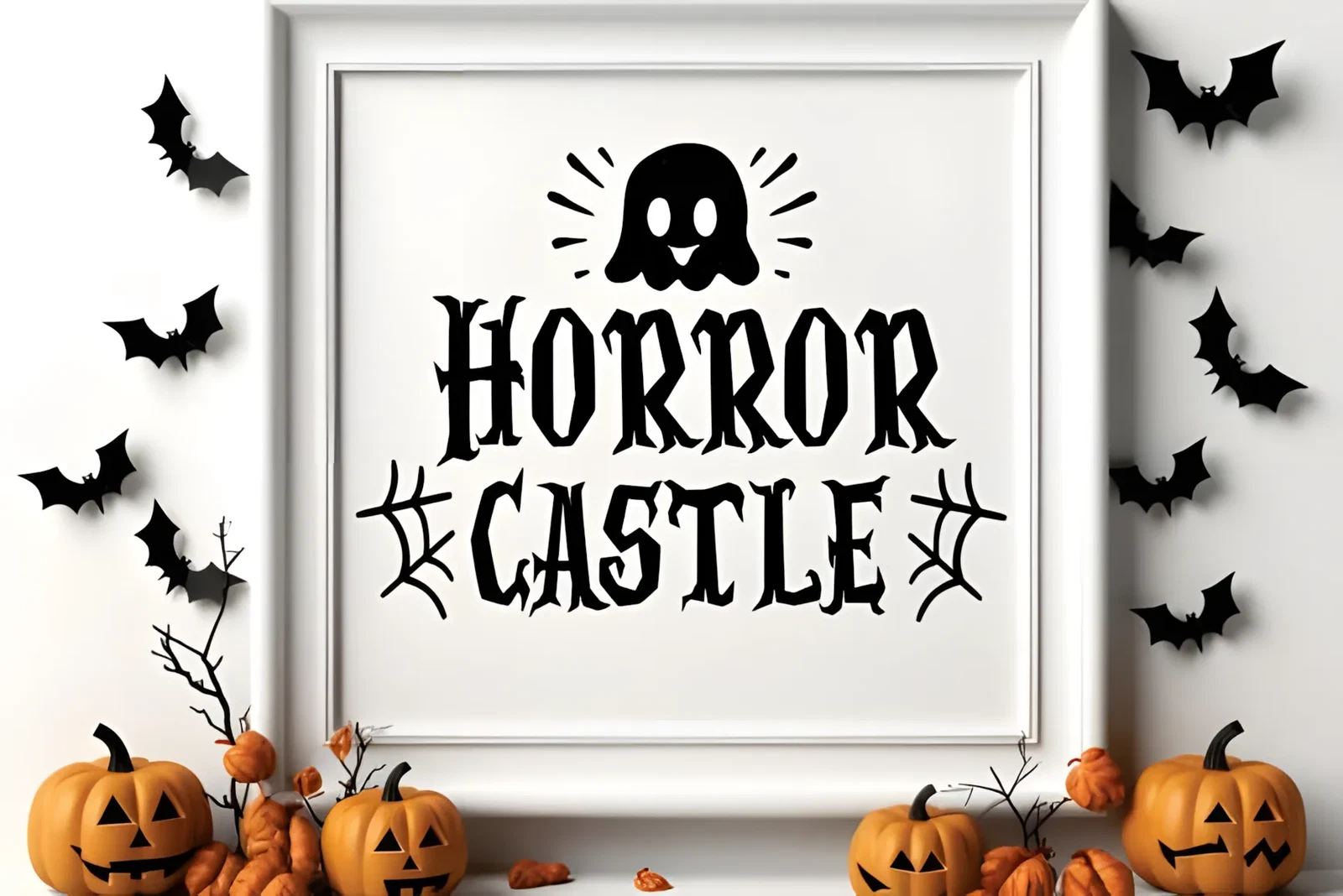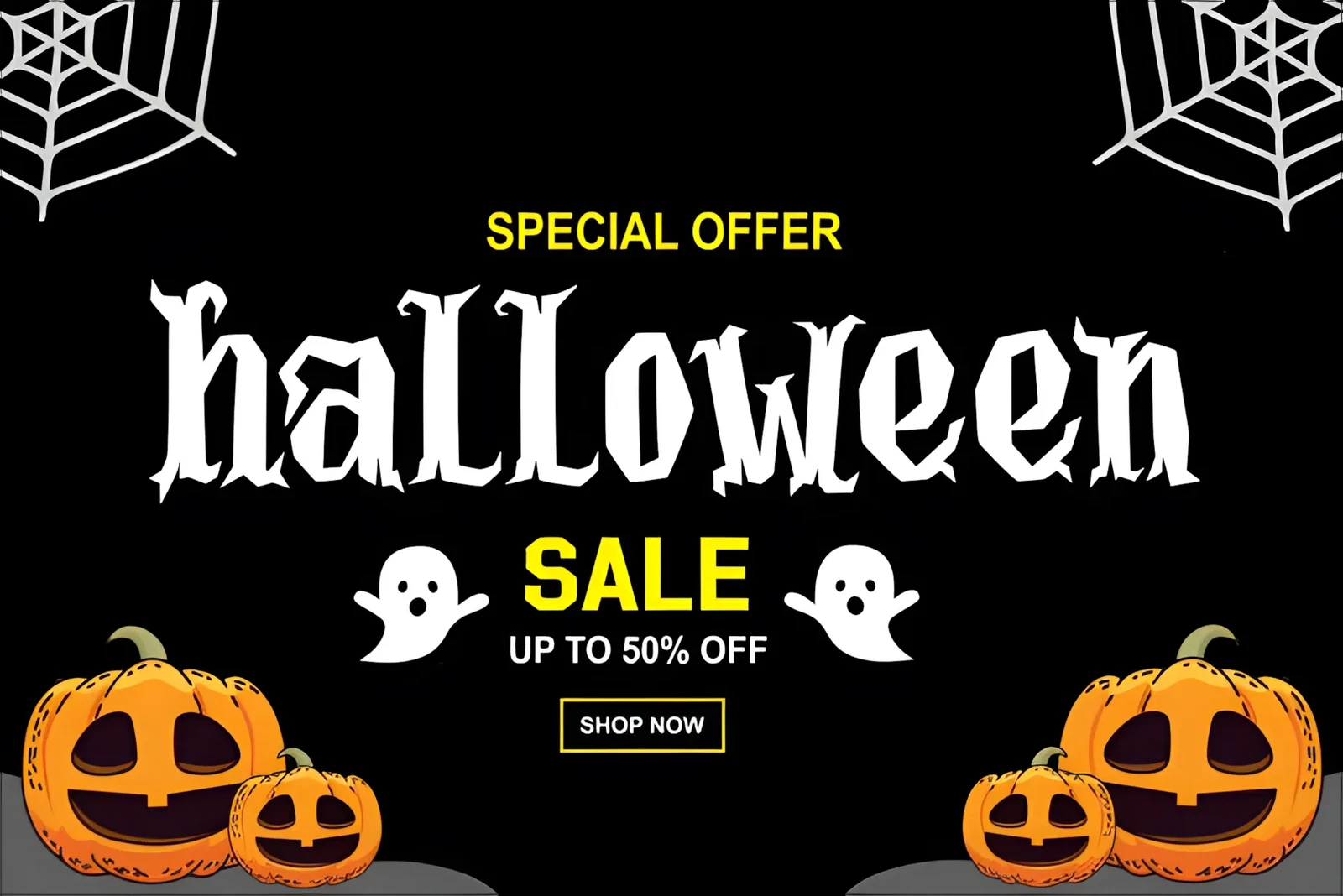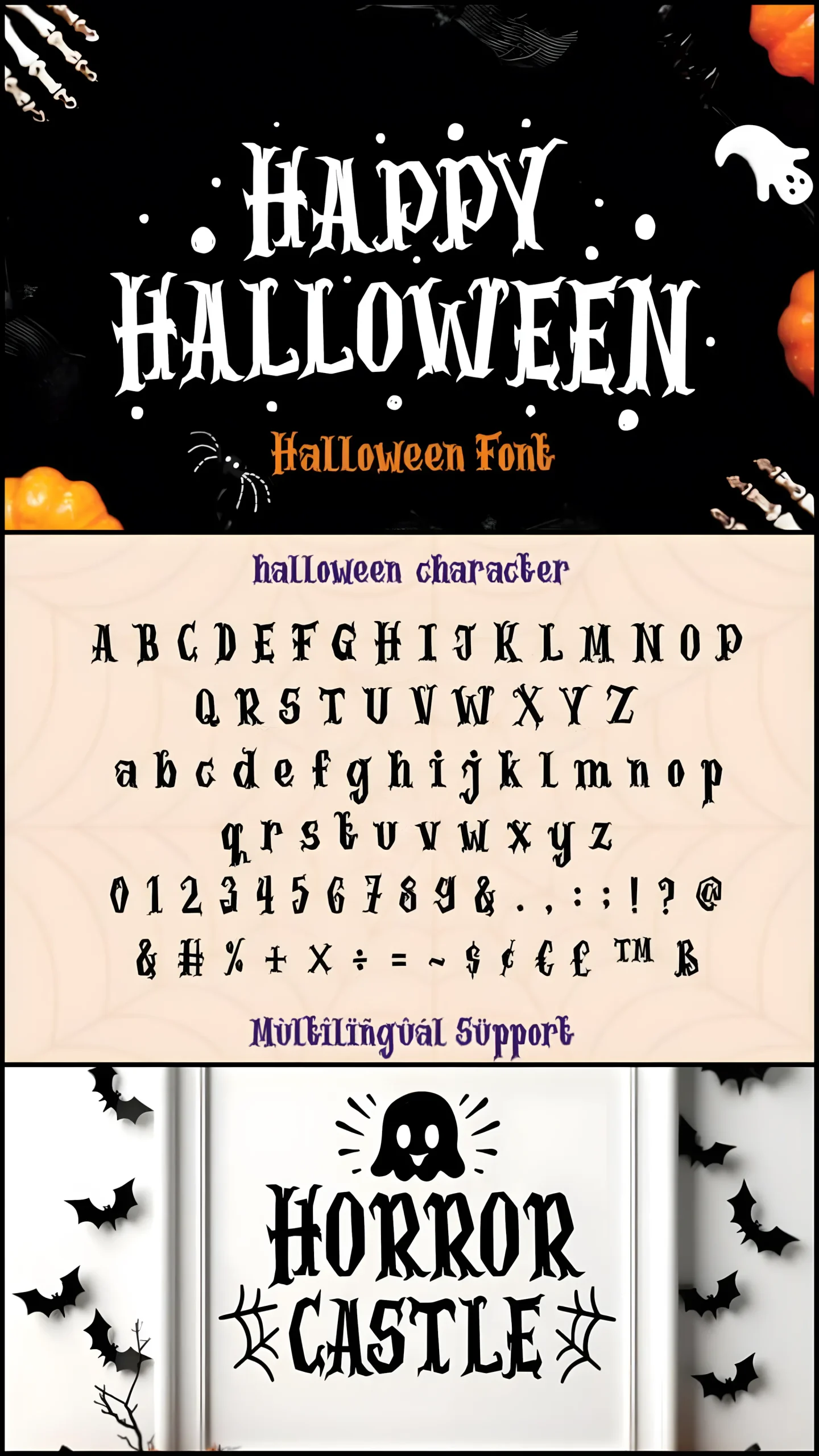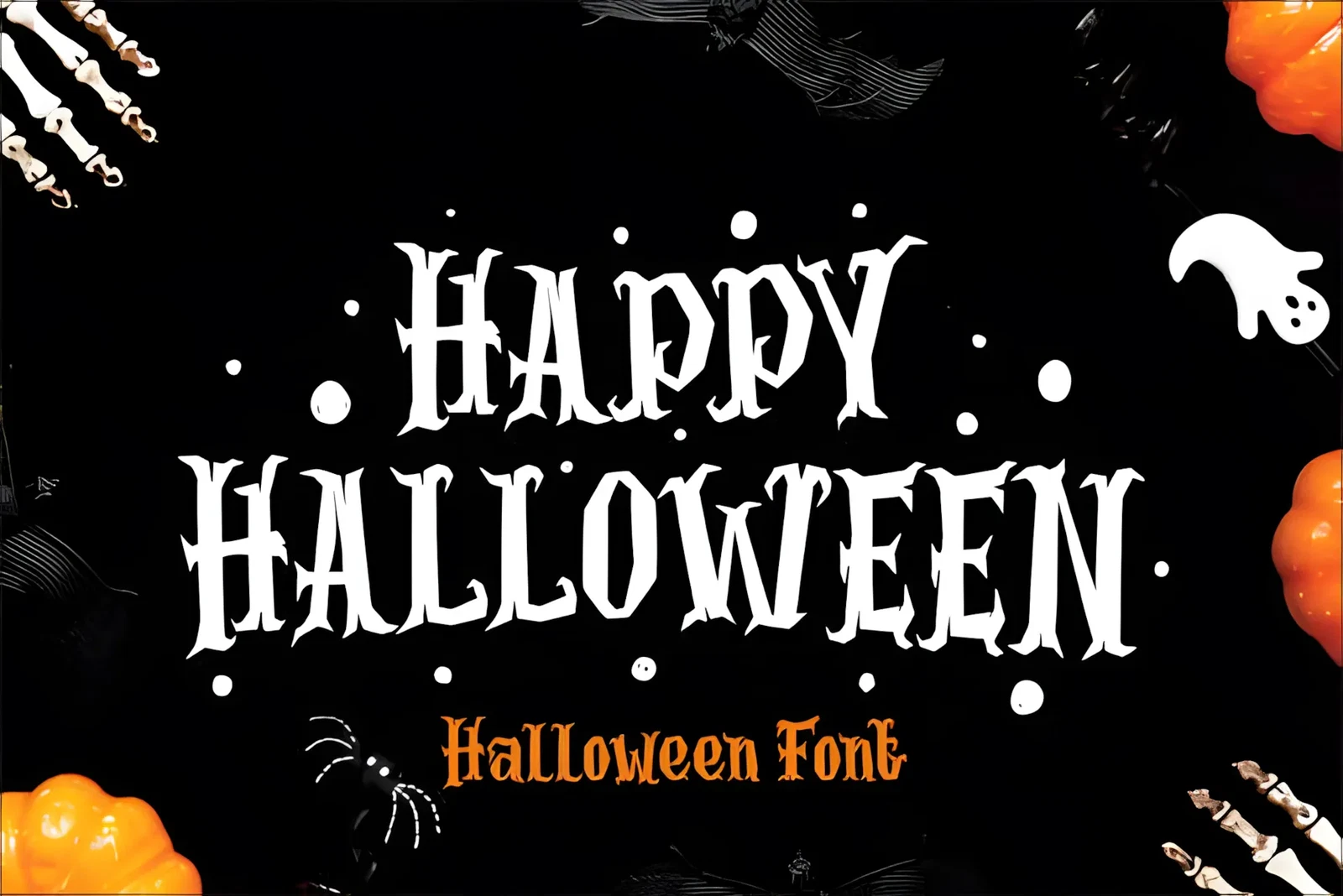
Seasonal design always comes with a challenge: the typography has to communicate atmosphere instantly, but it can’t sacrifice readability or usability. Halloween 1846 Font handles this balance better than most themed typefaces. From the first tests, it feels clear that this font was created with a specific purpose — to support Halloween and autumn-themed design without falling into visual chaos.
This is not a font that relies on extreme distortion or overdone horror effects. Instead, it delivers a controlled spooky aesthetic that works across posters, invitations, digital graphics, and seasonal branding.
First Look and Overall Impression
At first glance, Halloween 1846 feels familiar in a good way. The letterforms carry a spooky tone, but they avoid exaggerated sharpness or unreadable gimmicks. There’s character in every glyph, yet the structure remains stable and clear.
That balance makes a difference in real projects. Many Halloween fonts look impressive in previews but become difficult to use once placed into layouts. This one behaves differently — headlines feel intentional rather than decorative for decoration’s sake.
The typeface immediately signals autumn, mystery, and seasonal energy, but it doesn’t overwhelm the design.
Practical Use in Real Design Scenarios
This font was tested across several common seasonal tasks, and it performed consistently well.
Event Posters and Flyers
Halloween event posters demand instant attention. Whether promoting costume parties, haunted houses, movie nights, or fall festivals, the headline needs to set the tone immediately. Halloween 1846 does exactly that.
Placed at the top of a layout, it anchors the design visually. There’s no need to over-decorate or stack effects — the font already carries enough mood to lead the composition.
Invitations and Cards
For Halloween invitations, balance is everything. Too playful and the design feels childish; too dark and it loses approachability. Halloween 1846 sits comfortably in the middle.
On invitations and themed cards, the font delivers atmosphere without pushing the design into parody. Paired with simple icons or minimal illustrations, it creates designs that feel festive and intentional.
Social Media and Digital Graphics
On screens, especially mobile, readability becomes critical. Halloween 1846 remains legible at different sizes, which makes it reliable for social media graphics, digital banners, and event promos.
In feeds where many designs rely on generic fonts, this typeface helps seasonal content stand out without sacrificing clarity.
Why the Font Works So Well
Several qualities make Halloween 1846 effective in real-world use:
- The style is clearly seasonal but controlled
- Letterforms remain readable even with decorative details
- The font feels cohesive rather than chaotic
- It supports design rather than competing with it
The biggest strength lies in restraint. Instead of pushing horror aesthetics to the extreme, the font uses subtle irregularities and shape choices to suggest mood rather than shout it.
This makes it suitable not only for horror-themed designs but also for family-friendly events, autumn branding, and seasonal promotions.
Pairing with Other Fonts
Halloween 1846 performs best as a display font. When paired with a clean sans-serif or a neutral serif for body text, it creates a strong visual hierarchy.
A common and effective setup looks like this:
- Halloween 1846 for titles and headlines
- A simple sans font for supporting text
- Neutral spacing and color to let the typography breathe
This approach keeps designs readable while allowing the seasonal typeface to do its job where it matters most.
Print and Digital Consistency
One of the more practical advantages of this font is consistency across media. In print, the shapes feel confident and intentional. On screens, the structure holds without losing detail.
That consistency makes it useful for projects that require both print and digital assets — posters paired with social posts, invitations with online event pages, or seasonal branding used across platforms.
Where This Font Fits Best
Halloween 1846 feels most at home in:
- Halloween and fall event promotions
- Seasonal posters and banners
- Invitations and greeting cards
- Social media graphics and ads
- Themed packaging and menus
It’s flexible enough to support playful designs as well as darker, mood-driven visuals, depending on how it’s styled.
Halloween 1846 Font succeeds because it understands its role. It doesn’t try to do too much, and it doesn’t rely on shock value. Instead, it delivers a controlled seasonal aesthetic that designers can actually use.
For Halloween and autumn-themed projects that need atmosphere without visual overload, this typeface proves to be a reliable and effective choice. It adds character, supports the message, and keeps designs readable — which is exactly what a seasonal display font should do.